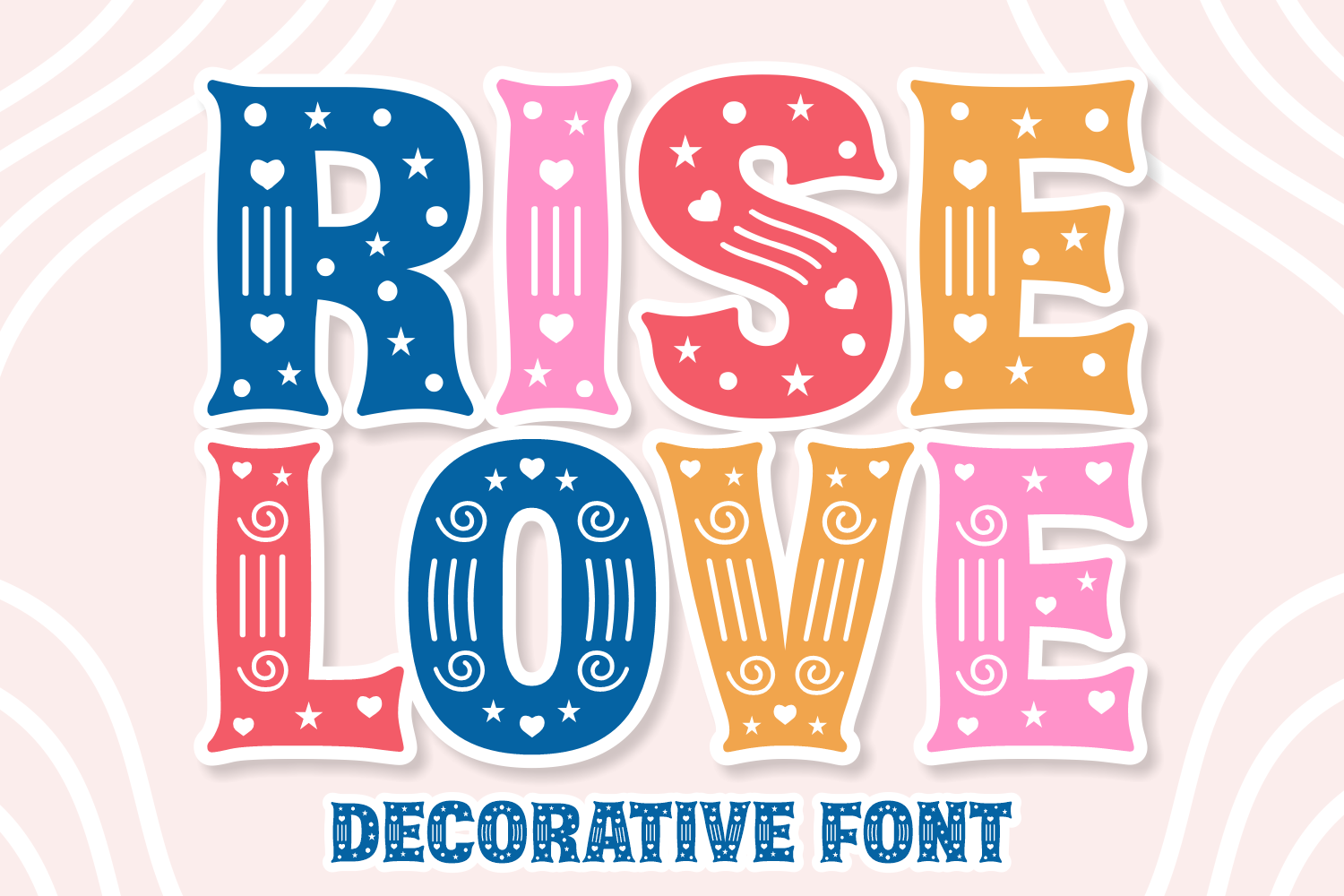
Rise Love is a cool, thick lettered and original decorative font. Due to its unique design, this font will instantly make an impact on your creations. Your imagination is the limit.
Font Name: Rise Love Font